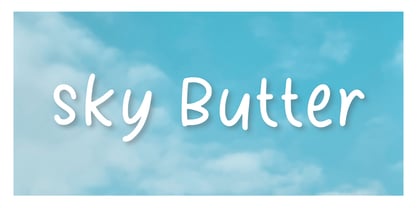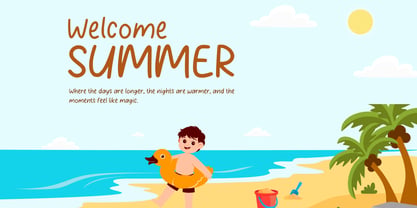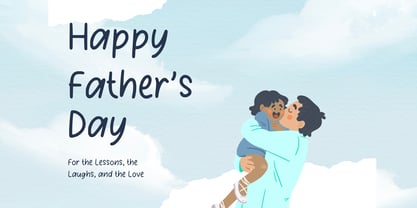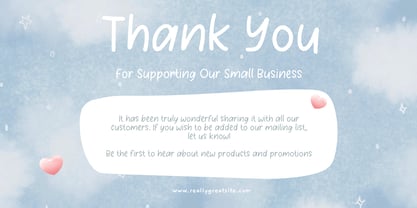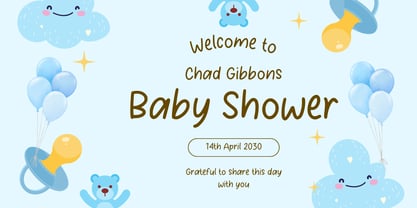
Sky Butter
by Aisyah
The Sky Butter Font Family was designed by Nur Aiysah Amalia and published by Aisyah. Sky Butter contains 1 styles. More about this family
Discover the delightful charm of Sky Butter, an irresistibly cute font ideal for personalizing gift cards, jazzing up posters, or adding that extra dose of magic to birthday cards. Versatile and unique, Sky Butter enhances any occasion with its playful offerings, serving as the perfect creative tool for crafting memorable sentiments. Bathed in whimsy and draped in a cheerfully casual style, Sky Butter adds a sprinkle of fun to every creation — transforming the ordinary into extraordinary with each stroke. For those seeking to sprinkle an element of enchantment on their work, embrace Sky Butter — a font where innovation dances delightfully with design.
Designers: Nur Aiysah Amalia
Foundry: Aisyah